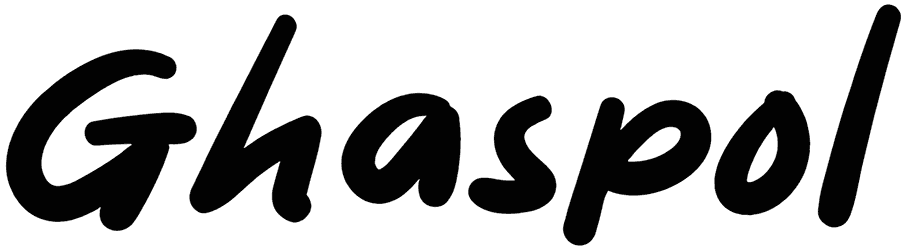
Ghaspol Font
If you want an intimate and modern mood to give your design, try this handwritten font. Ghaspol has a bold and manual letter style and can give a minimal vibe to your context. Even with no support of punctuation marks, this script font can be nicely fit for your creative projects as varied as planners, books, social media posts, and along with others.